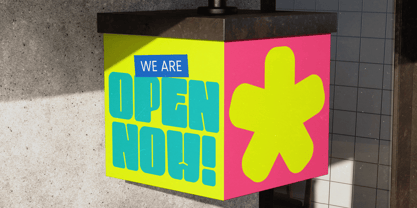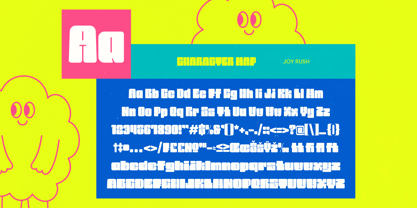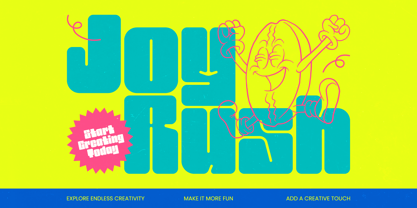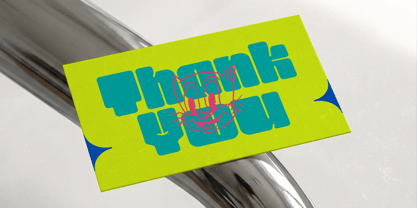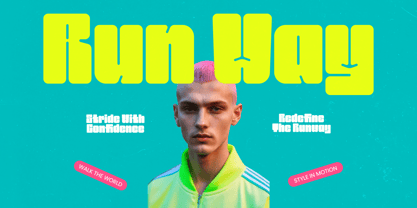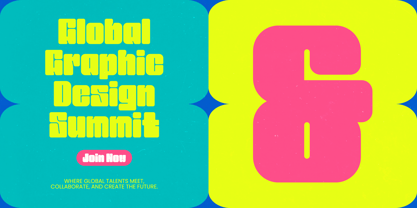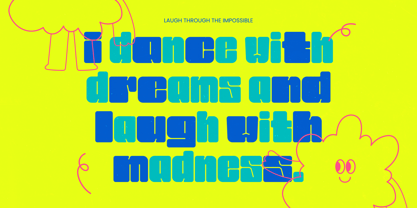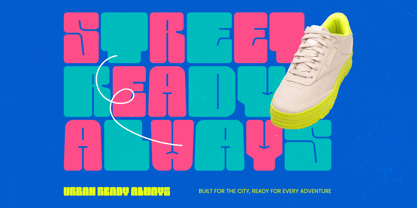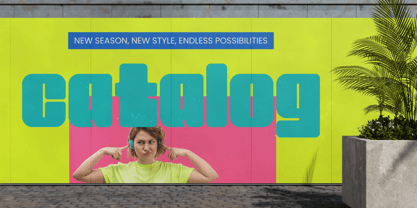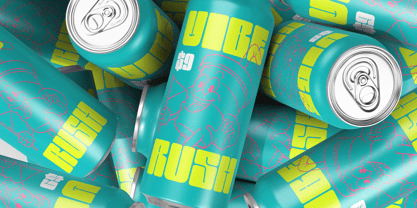
Joy Rush
Die Schriftfamilie Joy Rush wurde von Heru Utama Putra entworfen und von Timelesstype Studio veröffentlicht. Joy Rush enthält 2 Stile und Familienpaketoptionen. Mehr über diese Familie
Unleash a wave of vibrant energy and expressive charm with Joy Rush, a typeface designed to make every message resonate with pure excitement. This font is more than just characters on a page; it is a visual celebration that turns static text into a rhythmic dance of style and personality.
Inspired by the whimsical world of vintage cartoon animation and the high-energy aesthetics of 1970s pop culture, this font captures a unique sense of nostalgia. It channels the spirit of rubber-hose characters and Saturday morning graphics into a contemporary toolkit for the modern creator.
Providing a massive branding impact, this typeface stands out as a bold alternative to standard modern serif display and luxury typography. It reimagines the concept of a high-contrast serif through its chunky, rounded forms, delivering the weight and presence of a premium editorial font while maintaining a friendly, accessible disposition.